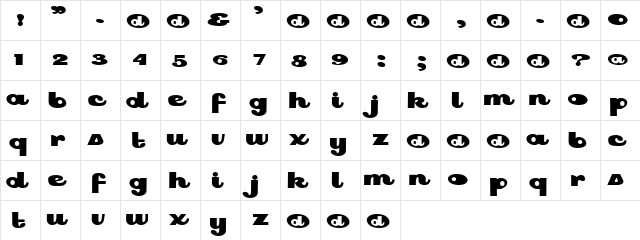
Cars&Girls Regular
Design Context for Cars&Girls Typeface
Cars&Girls is a composed and adaptable typeface that performs quietly and consistently across a wide range of design contexts.